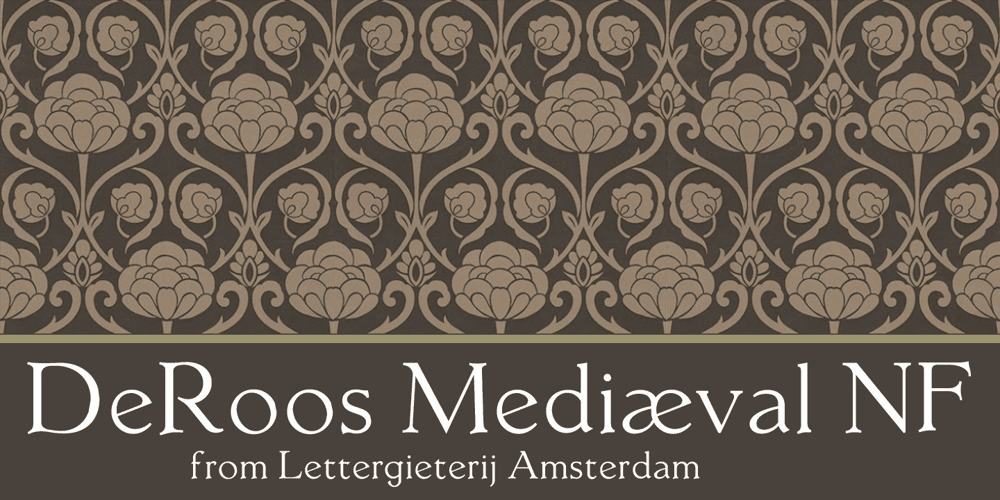
De Roos Mediaeval NF Font Family was designed by Nick Curtis and published by Nick’s Fonts. De Roos Mediaeval NF contains 1 styles and family package options. Here’s a classic face from Dutch master type designer Sjoerd H. de Roos. Use it where timeless elegance is the goal. Both versions of this font support the Latin 1252, Central European 1250, Turkish 1254 and Baltic 1257 codepages.